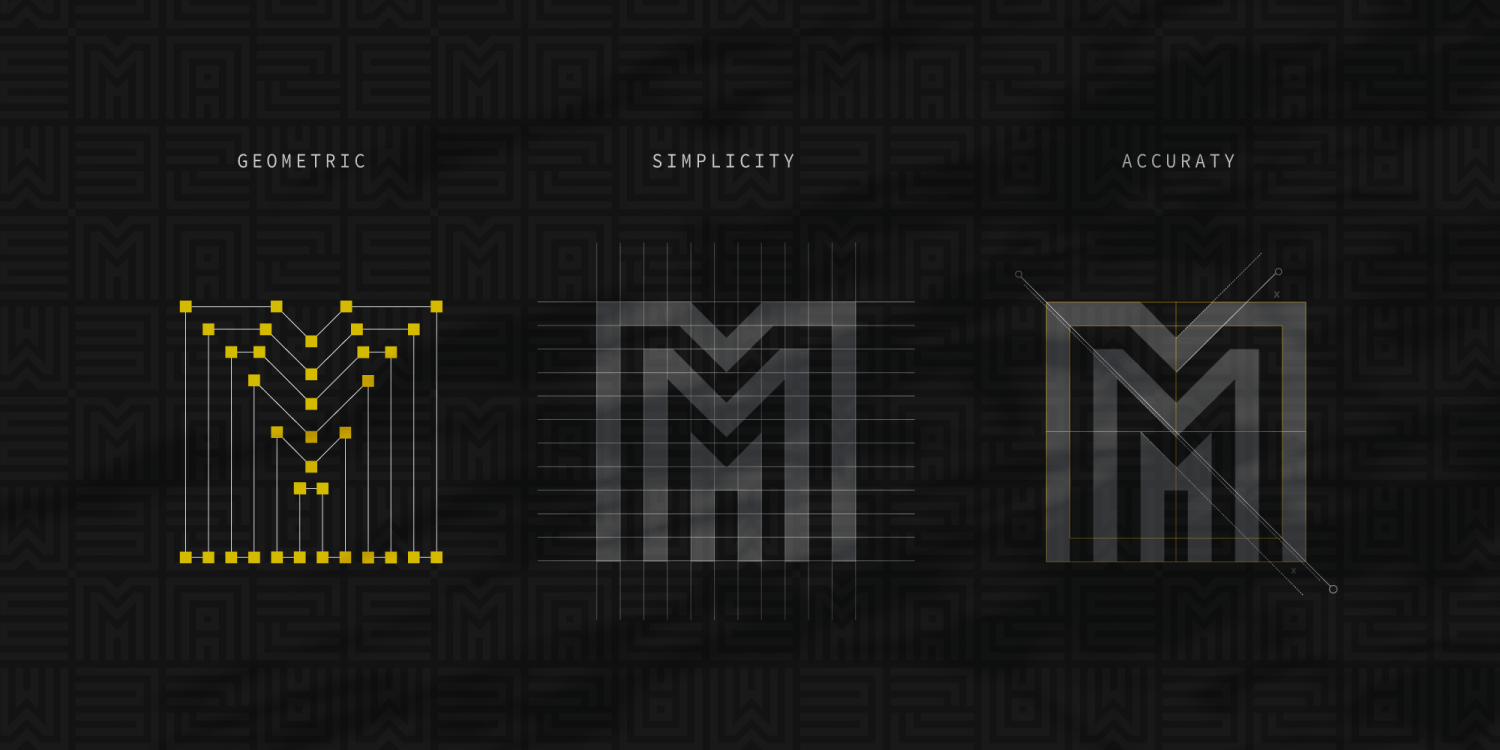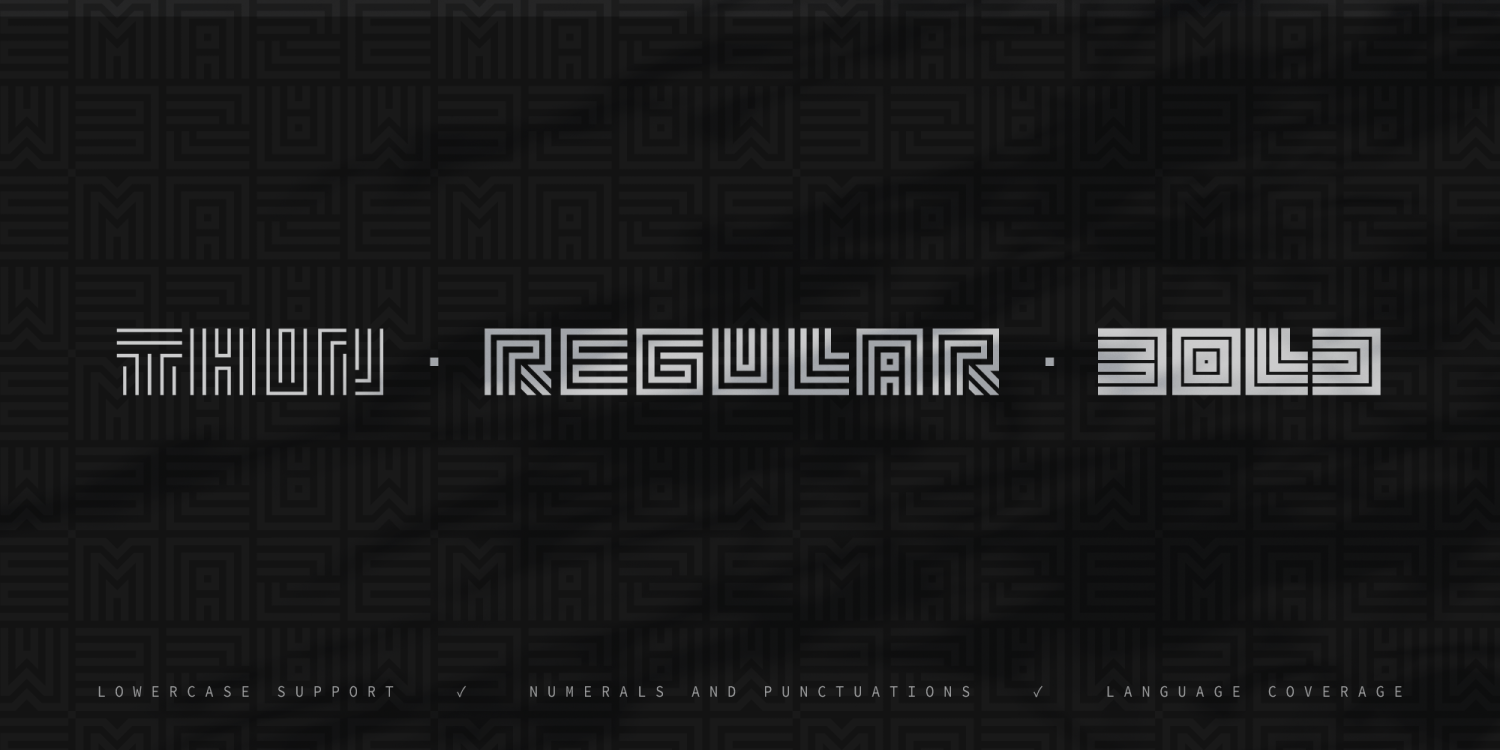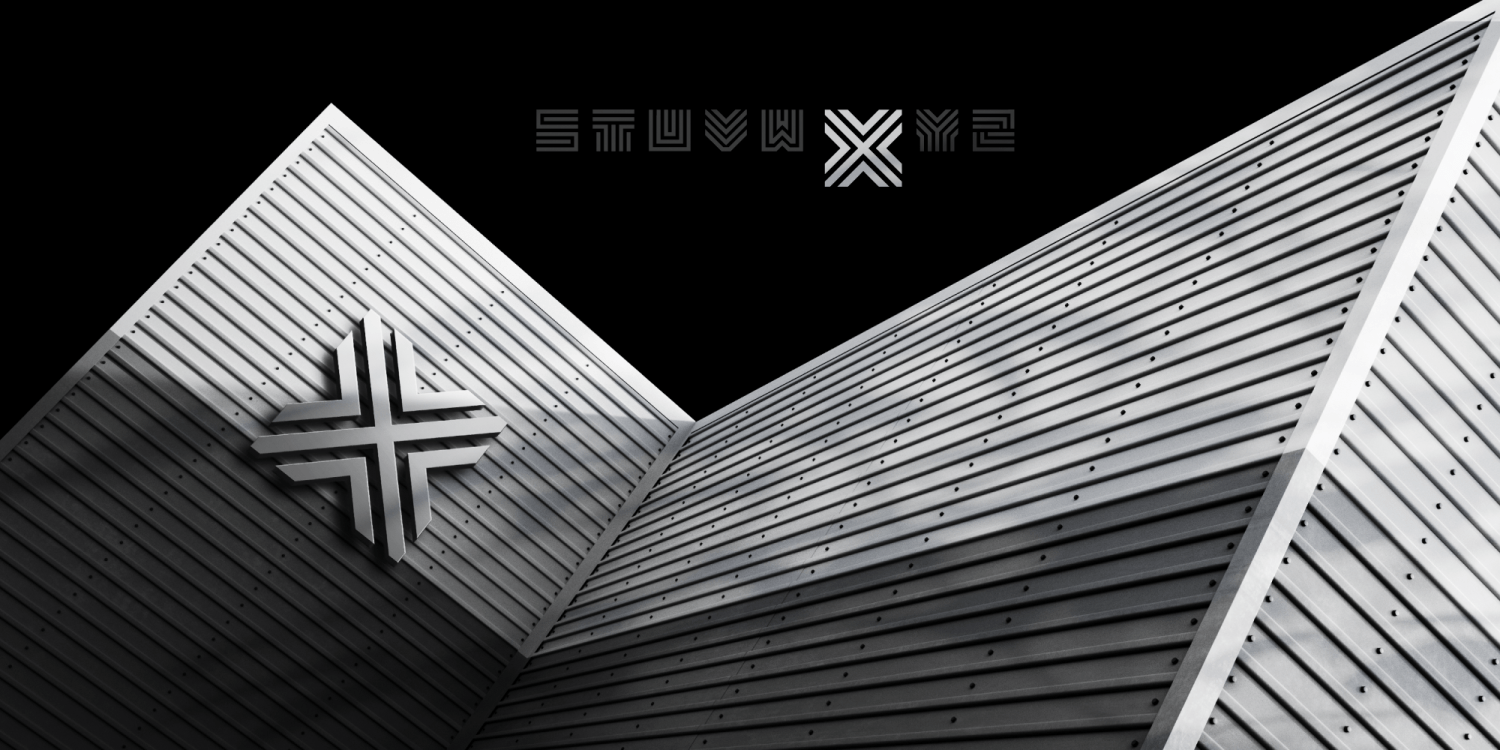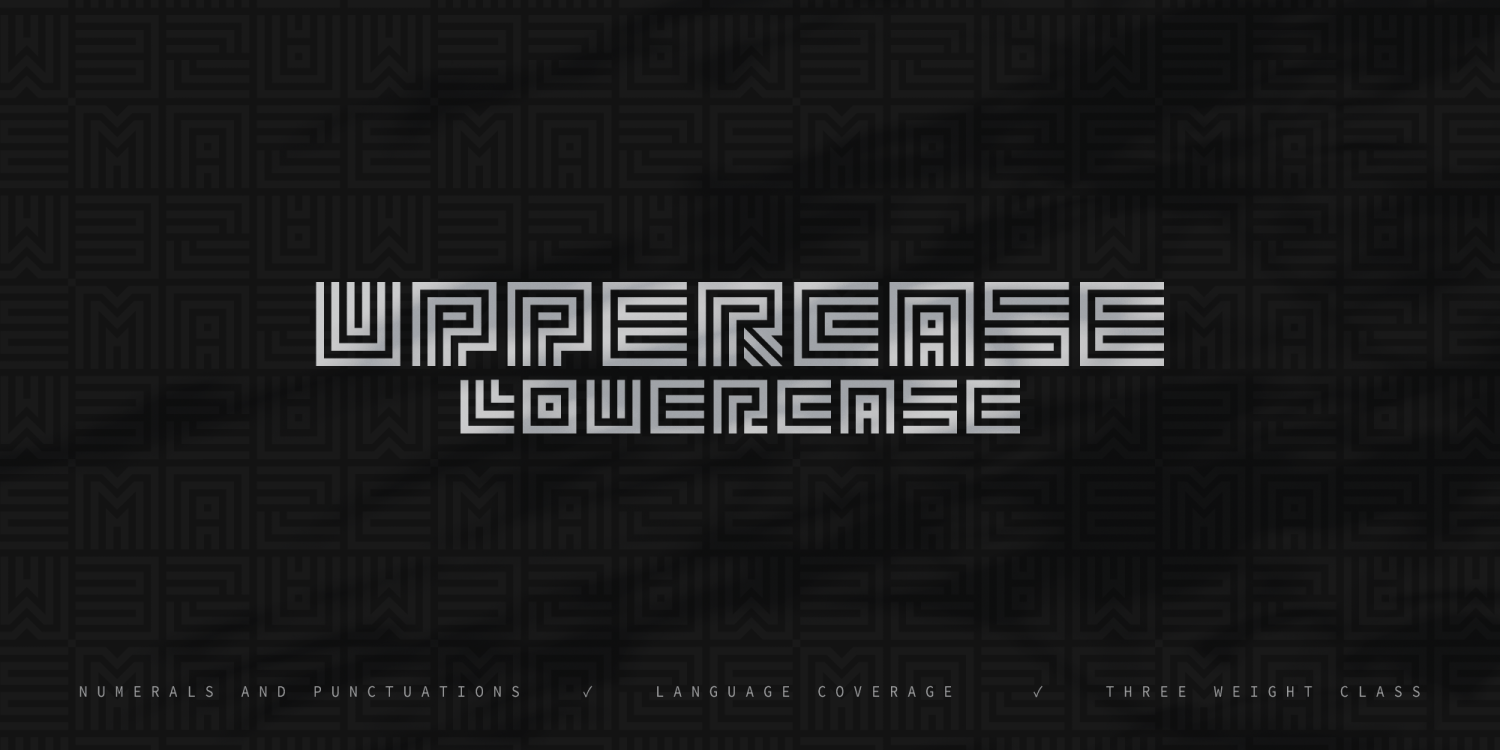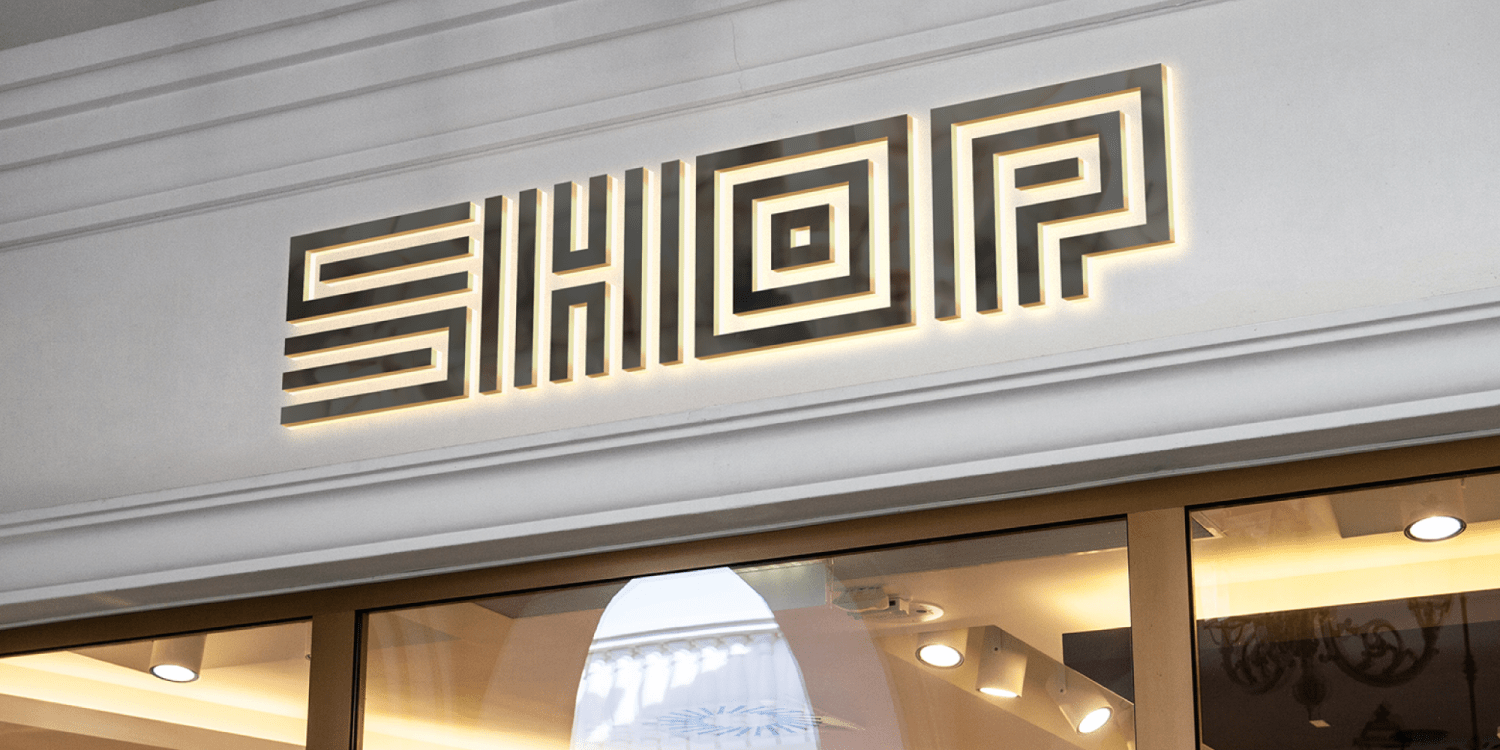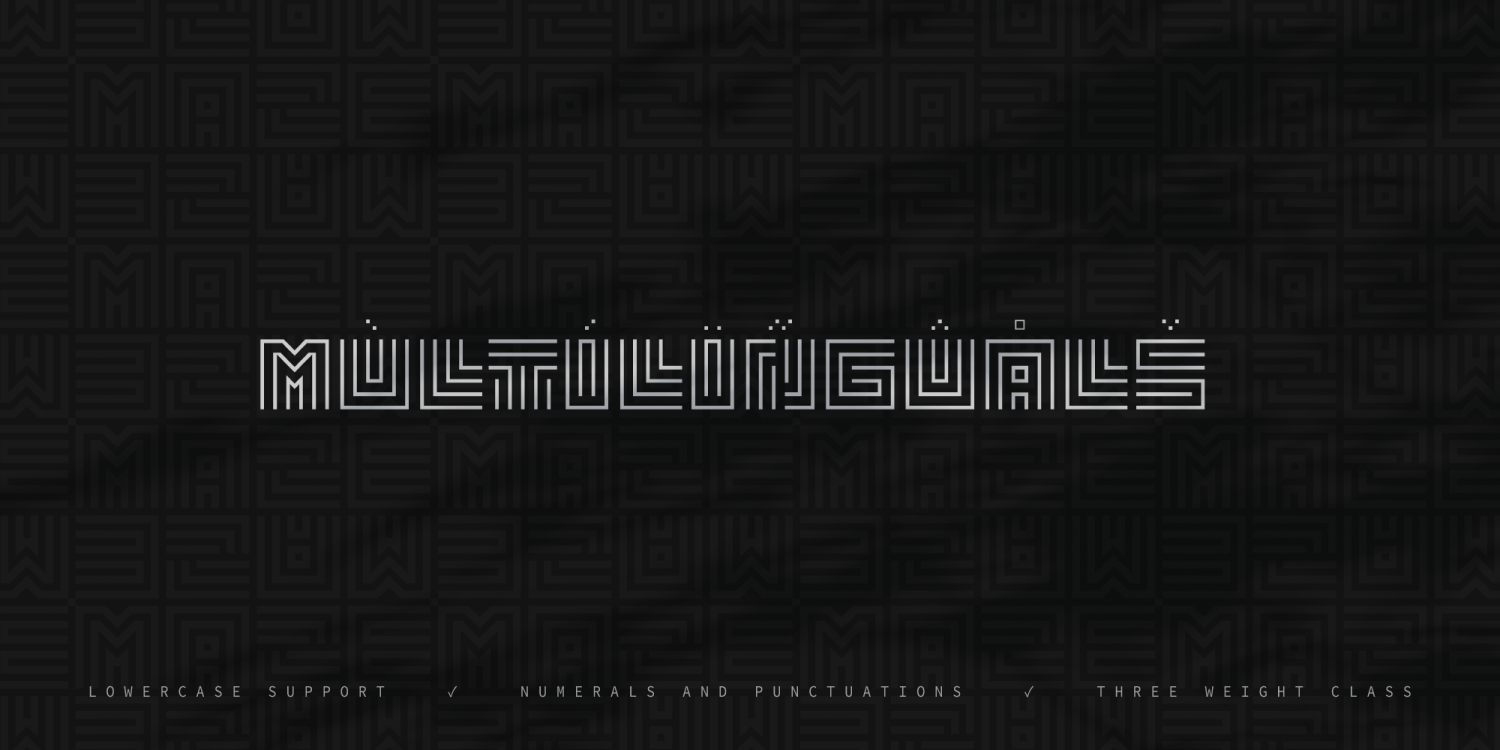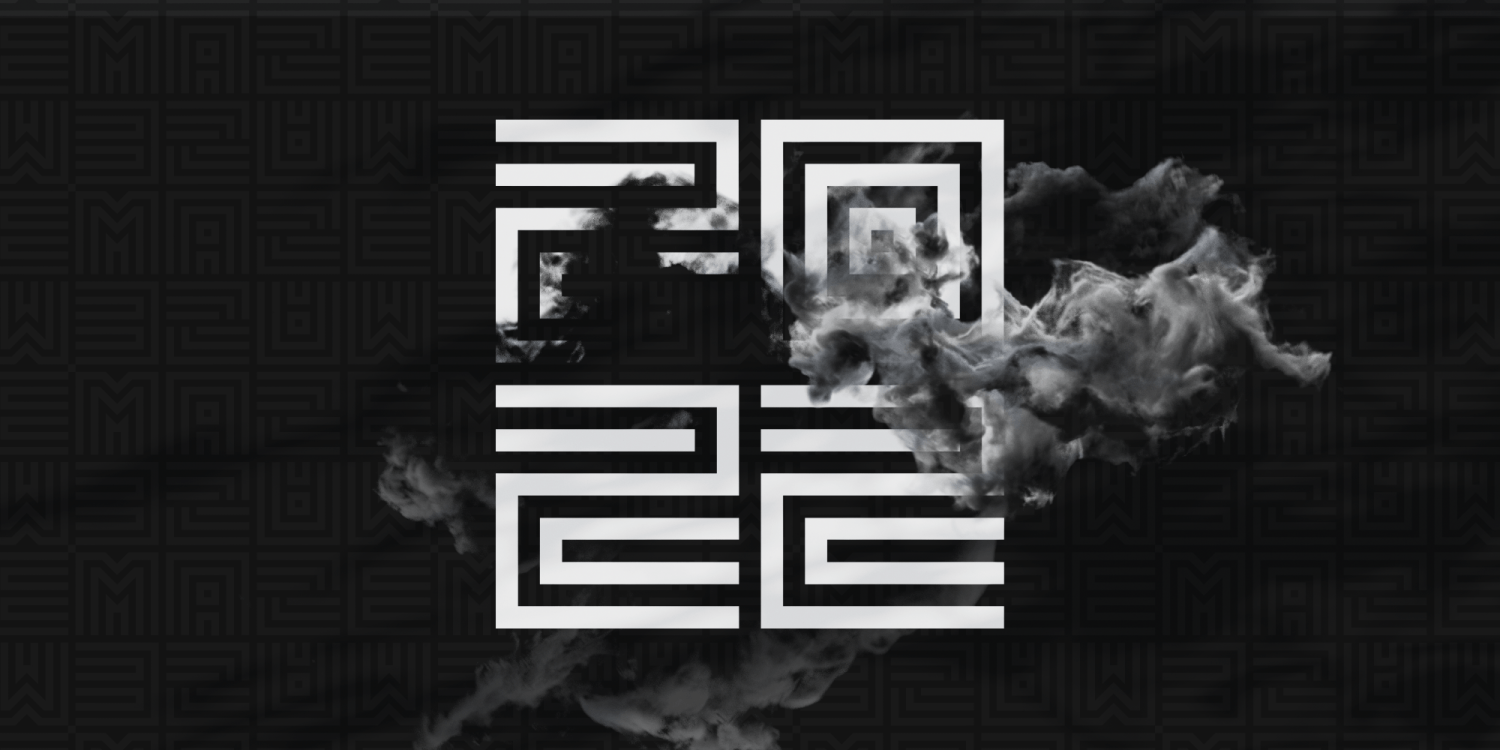
Geommaze is a geometric display font family built from continuous maze-like lines and precise modular forms. Its striped construction, square proportions and labyrinth-inspired details create a distinctive visual rhythm that works especially well in logos, signage and large headlines.
Available in Thin, Regular and Bold styles, Geommaze can shift from refined linear typography to strong architectural lettering. It is well suited for branding, logotypes, storefront signs, packaging, posters, editorial titles, fashion projects, technology identities and contemporary architectural design.
The family includes uppercase and lowercase letters, numerals, punctuation and multilingual Latin support. Its three coordinated weights offer flexibility for both detailed display compositions and bold, recognizable wordmarks.